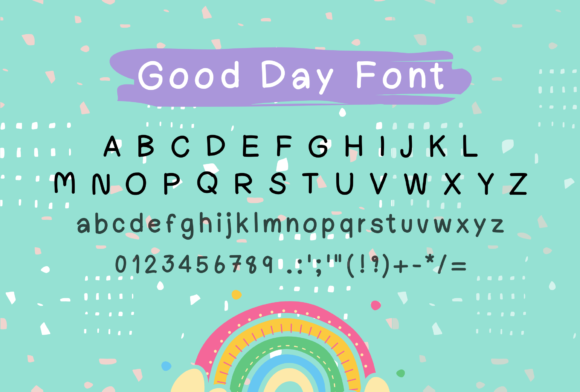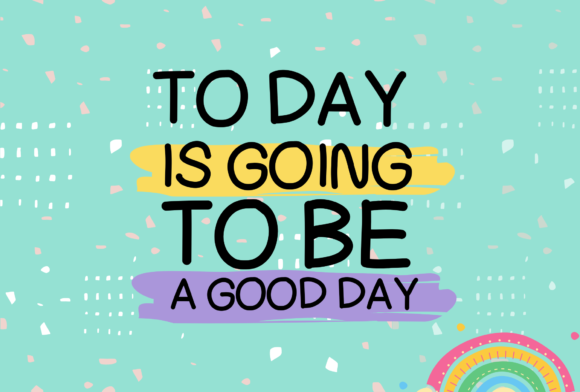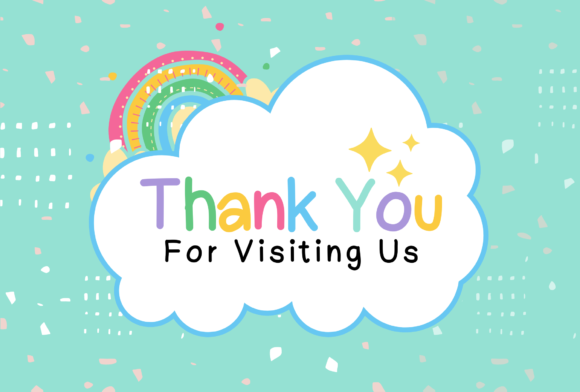
Bringing a Smile to Your Designs
Have you ever stared at a blank page, waiting for that perfect idea to strike? For many creatives, it’s the spark of inspiration that sets the wheels in motion. It could be a burst of color, a quirky character, or even a delightful font that captures the essence of your vision. For those who love to craft charming and whimsical designs, the Good Day Font is sure to become a trusted companion.
As a fun, friendly, and cute display font, Good Day Font brings a sweet, natural touch to a wide range of creations. Its versatility makes it perfect for children’s themed designs, especially when paired with bright colors. Whether you’re designing a children’s book, a party invitation, or a playful logo, Good Day Font is an excellent choice that will add a smile to your designs.
Good Day Font Key Features
- Unique Characteristics: The font features a clean, modern design with subtle rounded edges, giving it a friendly and approachable feel.
- Font Weight: The font includes multiple weights, from Light to Bold, allowing designers to achieve the desired level of emphasis and visual hierarchy.
Good Day Font Review
Overall, the Good Day Font is a decent choice for body text, but it may not be the most exciting option for branding or emphasis.
- ✨ Good legibility, even at smaller font sizes, making it suitable for body text.
- ✨ The font is highly readable on digital screens, which is essential for today’s web design landscape.
- ✨ Good Day Font has a clean and neutral aesthetic, which can work well for minimalist designs or everyday use.
- ⚠️ The font may not have enough character or personality to make it stand out in a crowded design landscape.
- ⚠️ It may not be the best choice for headings or titles, as it can feel a bit too plain.
- ⚠️ Limited customization options, which may limit its use in more complex design projects.
While Good Day Font is not a bad choice, it’s not necessarily a standout option either. It’s a solid, dependable choice for everyday use, but if you’re looking for something more exciting or unique, you may want to consider other options.
The Good Day Font is ideal for creating friendly and approachable designs. Use it for:
- Blogs and social media posts
- Branding and marketing materials
- Invitations and event promotions
For the most effective use of Good Day Font, keep the design simple and focus on clear typography.
Alternative Fonts for Designers
Lato is a sans-serif font that is highly legible and versatile. It is suitable for body text, headings, and even display text. It has a clean and modern look, making it a great alternative to Good Day Font. When to use: Lato is ideal for digital products, websites, and mobile apps where readability is crucial.
Comparison: Lato is more condensed and modern than Good Day Font, but it still maintains a friendly and approachable feel.
Merriweather is a classic serif font that exudes sophistication and elegance. It is perfect for print materials, such as books, magazines, and brochures, where a traditional look is desired. When to use: Merriweather is ideal for high-end branding, publishing, and luxury products.
Comparison: Merriweather is more formal and traditional than Good Day Font, which makes it a great choice for formal occasions or high-end branding.